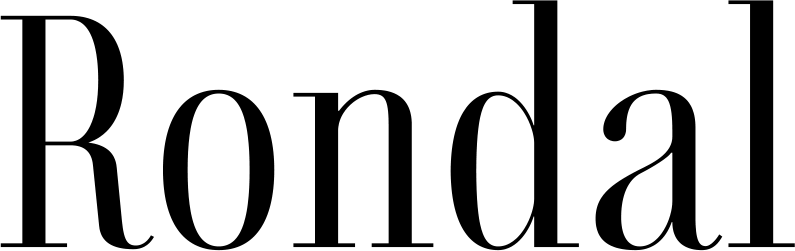
Rondal Font
The most interesting point is to use the right font to create the desired mood for your content, for example in designing the main texts, websites, fashion magazines, and wedding invitations that occasionally require a formal and classic look, you can try serif fonts like Rondal.
When you download this condensed font you find this typeface in three styles and each collection contains the uppercase and lowercase letters, the numbers, and the punctuation marks.